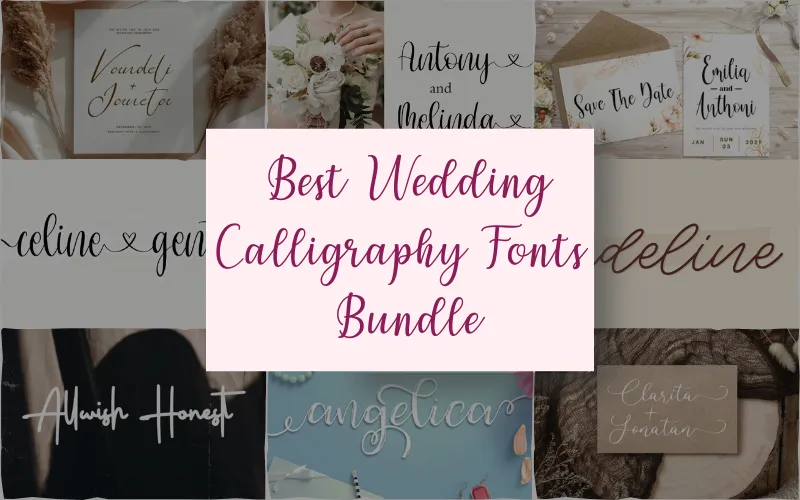
Best Wedding Calligraphy Fonts Bundle
Each of these calligraphy fonts is created with a unique personality, from modern brush scripts to timeless calligraphic forms.
Their refined strokes and smooth ligatures make them a perfect choice for wedding invitations, branding, greeting cards, and handmade crafts.
50 Best Wedding Fonts
The Best Wedding Calligraphy Fonts Bundle Include:
Adeline
Allwish Honest
Angelica
Bulgathi
Calligrapher
Celine Genta
Charlotte Shine
Cherylitta
Cristaline (WOFF)
Daylight Welington (WOFF & WOFF2)
Demilan
eilysa luise
evelyne
FatmineSignature
Firataline
gildane hyme
Golden Richlane
Grimstica
hindia
Jambul
Janetanice
Kintan Audrey
Lemonylac
Loveline Glamour
mada kayla
Magestica
Magica
Magnolina
Mangkualam
Mathildaine
Maudylaki
Mightyline
Milleaqueen
minadine
Mindlight
Mysthiqa
Nicola Aquine
Olynchan
Pusttaka Katta
Rintica
Romanian Signature
Romantic Jasmine
Sallyna Cattalya
Santaria
Signature Austine
Southland Righway
Syahilla
Symphonice
Thousand Sunnygo
Wantsignature
Willonita
Calligrapher
Celine Genta
Cherylitta
Demilan
eilysa luise
evelyne
Firataline
gildane hyme
Golden Richlane
hindia
Janetanice
Loveline Glamour
mada kayla
Magica
MAGNOLINA SVG
Mathildaine
Mightyline
minadine
Nicola Aquine
Olynchan
RINTICA
Sallyna Cattalya
Symphonice
Thousand Sunnygo
Wantsignature
Willonita